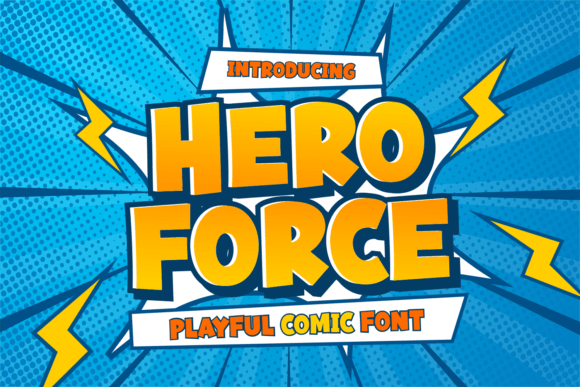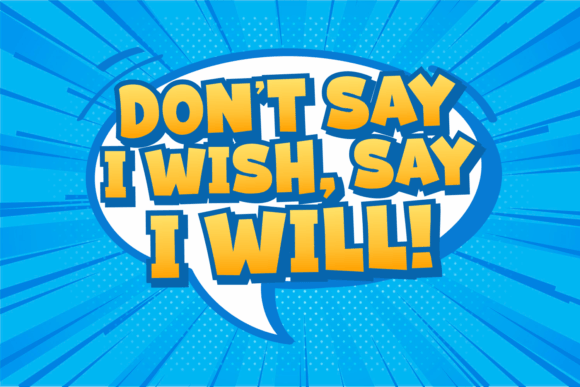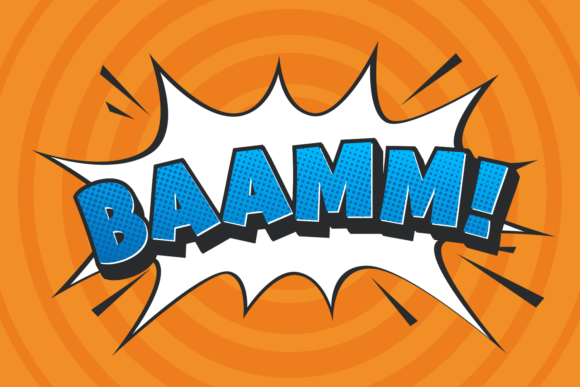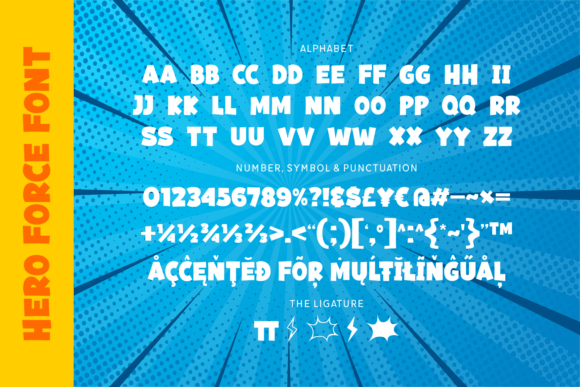
Hero Force Font: A Playful Display Font for Comics & Kids’ Designs
About the Hero Force Font
Get ready to be inspired by Hero Force Font, a fresh and dynamic typeface for modern creators. Hero Force is a playful comic font. The font’s design is approachable and engaging, with rounded edges and a whimsical feel. It’s ideal for projects that cater to children, such as storybooks, comics, educational materials, and playful branding.
Hero Force excels in headlines, short playful taglines, and children’s book titles. Its friendly, rounded forms also work well on packaging for toys or children’s products, and in short social media posts. However, its playful nature makes it less suitable for body text, long paragraphs, or applications requiring high readability, such as user interfaces or legal documents.
Pairing Hero Force with a clean sans-serif like Open Sans for body text creates a balanced contrast, allowing the playful headline to stand out without overwhelming the reader. For a more sophisticated feel, consider pairing it with a classic serif such as Garamond for supporting text.
The font’s core personality is undeniably friendly and approachable, making it ideal for brands targeting a young audience or those seeking a lighthearted, engaging image. Avoid using it in contexts demanding seriousness or sophistication.
Hero Force Font Usage Examples
Hero Force Font Example